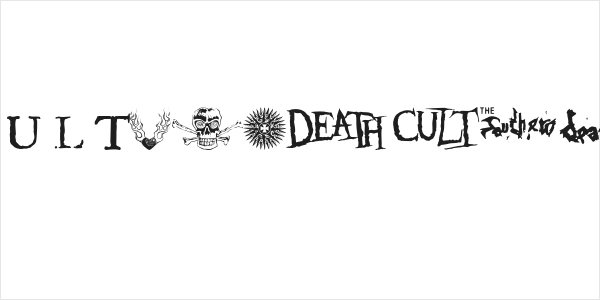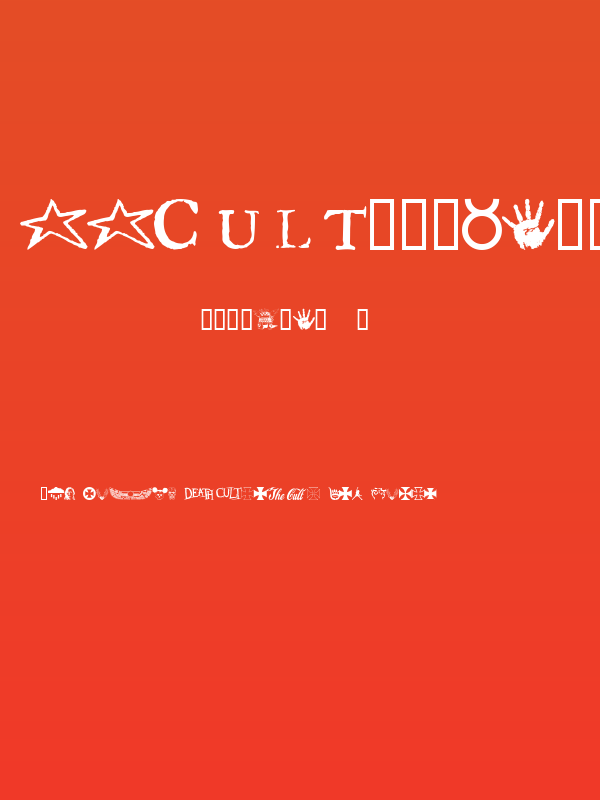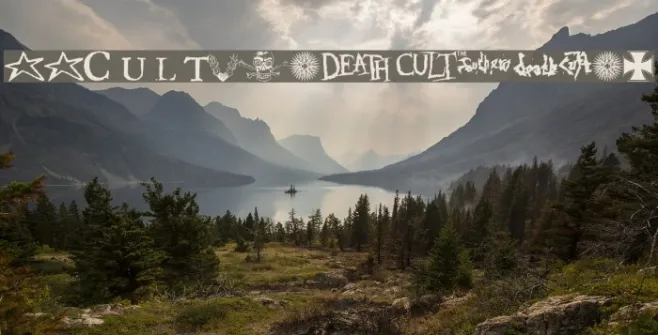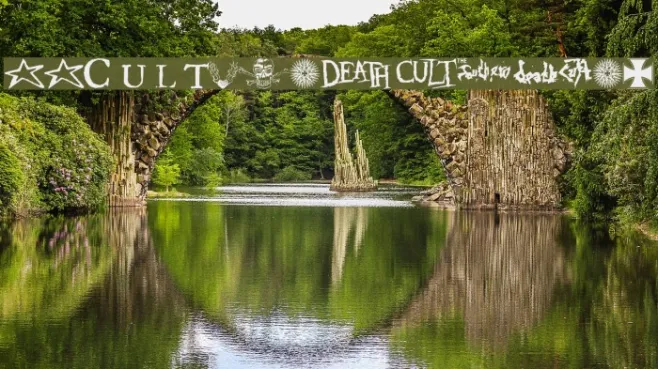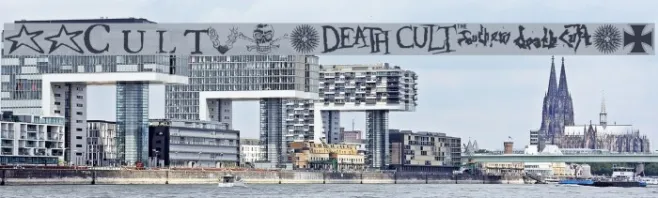
FFCultbats Font
FFCultbats Description
A highly decorative dingbat font featuring occult, mystical, and symbolic imagery, including hands, stars, skulls, crosses, and various esoteric icons. Each character is represented by a unique pictogram or emblem rather than traditional letterforms.
| Overall Style | Decorative, Occult, Mystical |
| Use Case | Logos, Posters, Decorative elements |
| Proposed Projects | Posters, album covers, event flyers, themed branding, tattoo designs, alternative fashion graphics. |